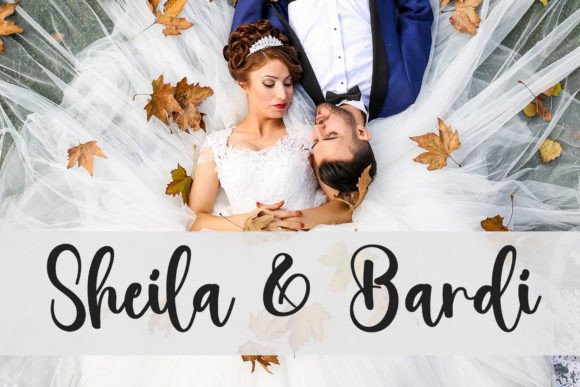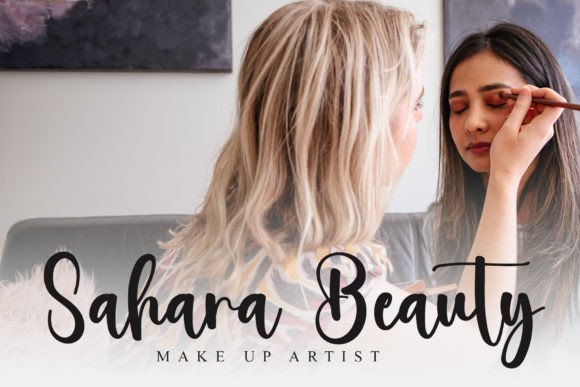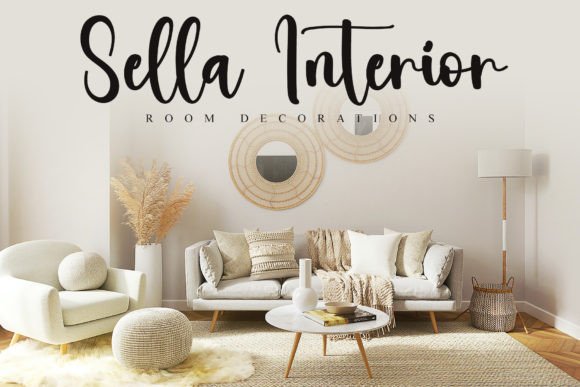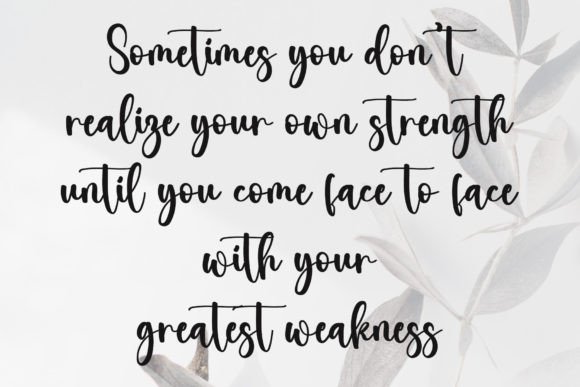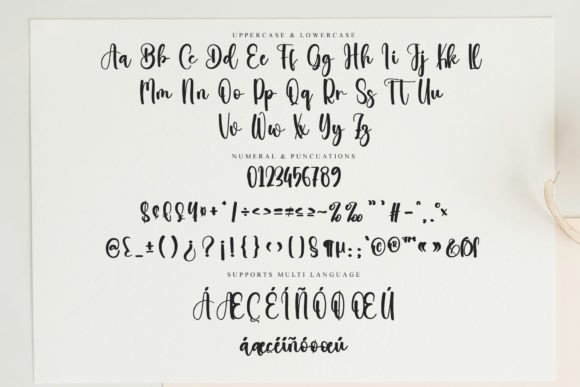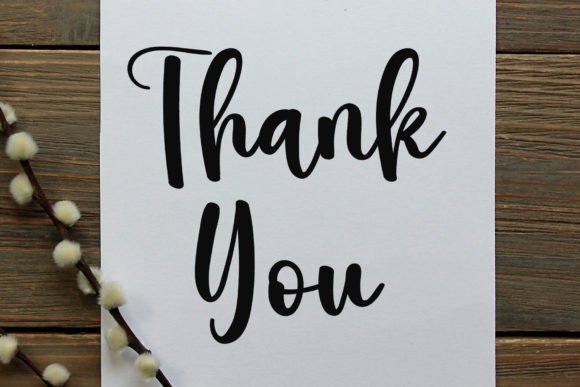
Introducing Bestine Font: Elevate Your Designs with Timeless Elegance
In the world of typography, a font can make or break a design. For designers and crafters seeking to add a touch of sophistication and style to their projects, Bestine Font is an exceptional choice. This stunning handwritten font boasts a contemporary atmosphere and impeccable form, drawing inspiration from timeless classic calligraphy.
The Essence of Bestine Font
Bestine Font is a masterfully crafted typeface that exudes elegance and refinement. Its design is rooted in the principles of traditional calligraphy, yet it presents a modern and fresh aesthetic. This harmonious blend of classic and contemporary elements makes Bestine an incredibly versatile font, suitable for a wide range of applications.
Key Features of Bestine Font
- Contemporary yet Classic: Bestine Font strikes the perfect balance between modern style and timeless elegance, making it ideal for designers looking to create sophisticated designs.
- Handwritten with Flair: The font’s handwritten nature adds a personal touch to any project, infusing it with warmth and character.
- Balanced and Varied: Bestine offers a range of variations and weights, allowing designers to experiment with different styles and tones to suit their creative vision.
- Impeccable Form: With meticulous attention to detail, Bestine Font showcases impeccable form and structure, ensuring that every letter and word is a joy to behold.
Applications of Bestine Font
The versatility of Bestine Font makes it an excellent choice for various design projects, including:
- Branding and Logo Design: Create a lasting impression with a custom logo or brand identity that exudes sophistication and style.
- Stationery and Invitations: Add a touch of elegance to your stationery, invitations, and greeting cards.
- Packaging Design: Elevate your product packaging with a font that communicates luxury and refinement.
- Digital Media: Use Bestine Font in your digital projects, such as website headers, social media graphics, and presentations, to add a level of sophistication and professionalism.
Why Choose Bestine Font?
In a sea of fonts, Bestine stands out for its unique blend of classic and modern elements. Here are a few reasons why designers and crafters should consider Bestine Font for their next project:
- Unique and Memorable: Bestine Font is designed to leave a lasting impression, making it perfect for projects where you want to stand out.
- Easy to Read: Despite its elegant and cursive nature, Bestine Font remains highly legible, ensuring that your message is communicated clearly.
- Highly Versatile: With its range of variations and weights, Bestine Font can be adapted to suit a wide range of design styles and applications.
Bestine Font is a stylish and sophisticated typeface that brings a touch of timeless elegance to any design project. Its unique blend of classic calligraphy and modern style makes it an exceptional choice for designers and crafters seeking to elevate their designs. Whether you’re working on branding, stationery, packaging, or digital media, Bestine Font is sure to enhance the beauty of your projects and leave a lasting impression.